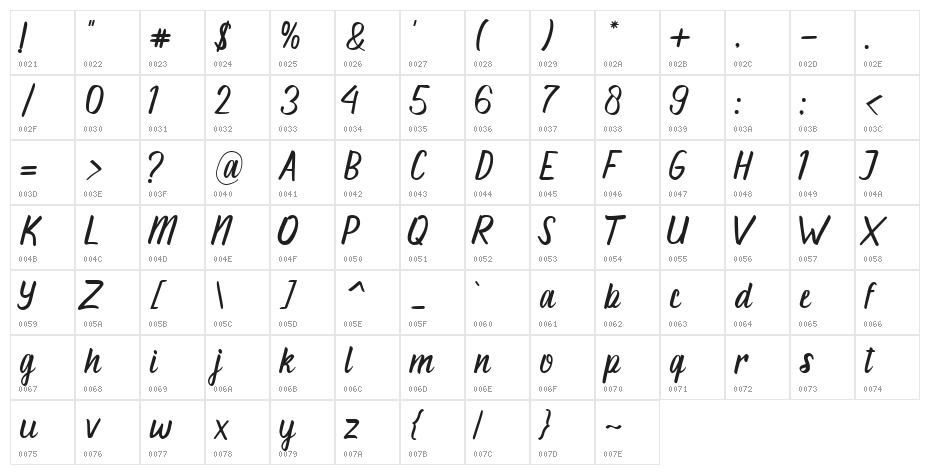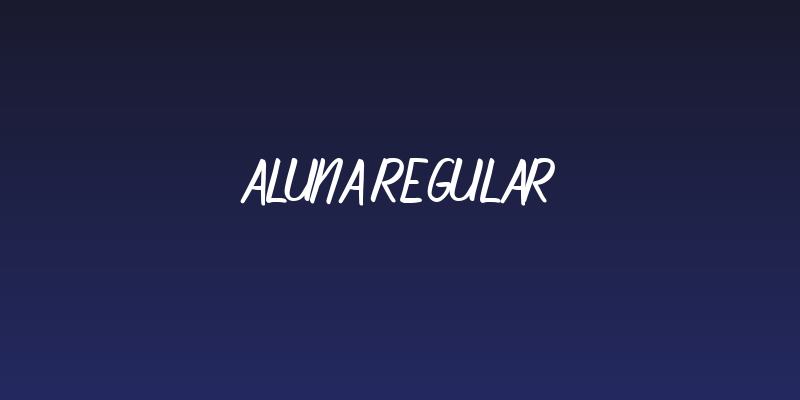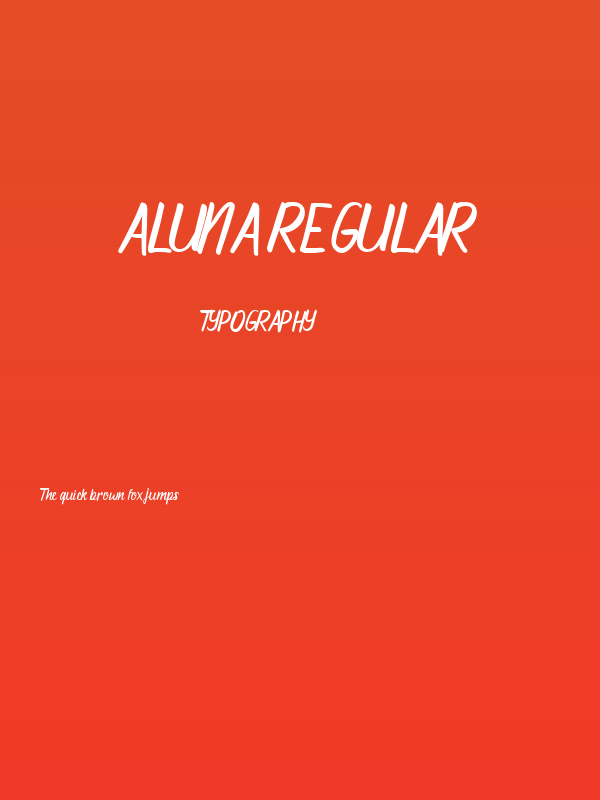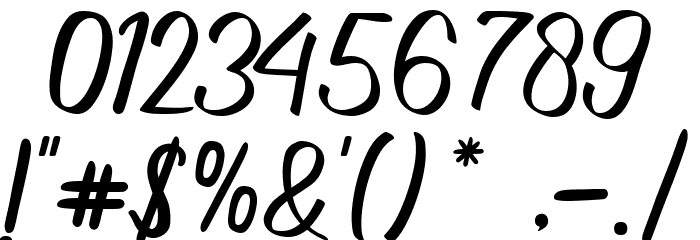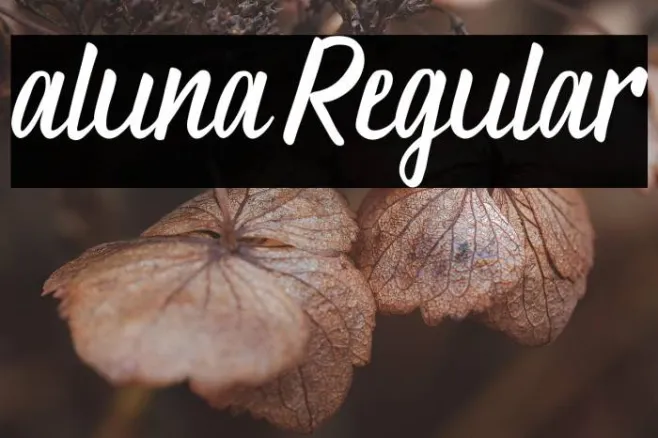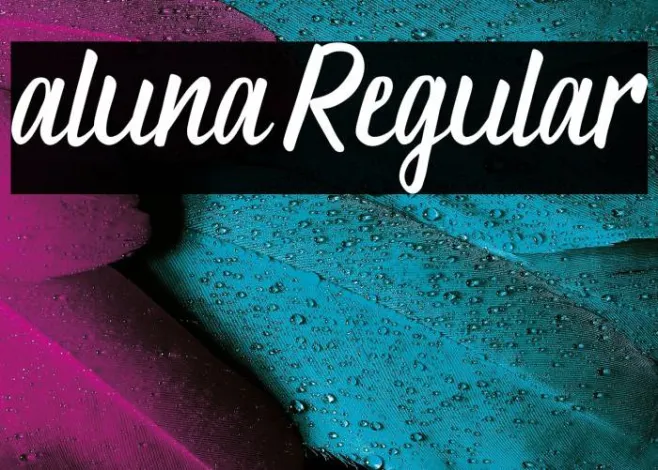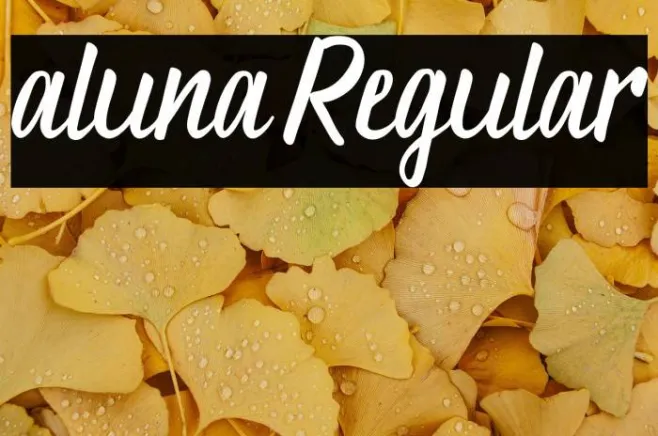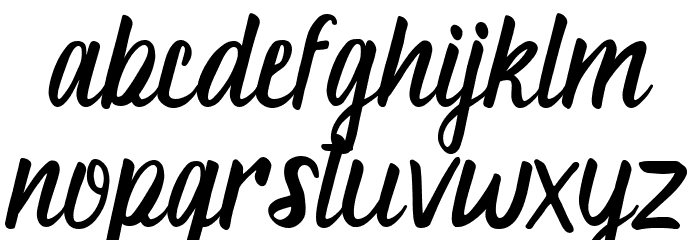
aluna Regular Font
aluna Regular Description
This font features a dynamic and flowing script style, characterized by its smooth, cursive strokes and a handwritten appearance. The letters are slightly slanted, giving a sense of movement and elegance. The uppercase letters are bold and prominent, while the lowercase letters maintain a consistent flow, enhancing readability. The numerals and special characters are crafted to match the overall script style, ensuring a cohesive look. This font is perfect for projects that require a personal touch or a creative flair.
| Proposed Projects | Ideal for wedding invitations, greeting cards, personal branding, and creative projects that require a personal touch. |